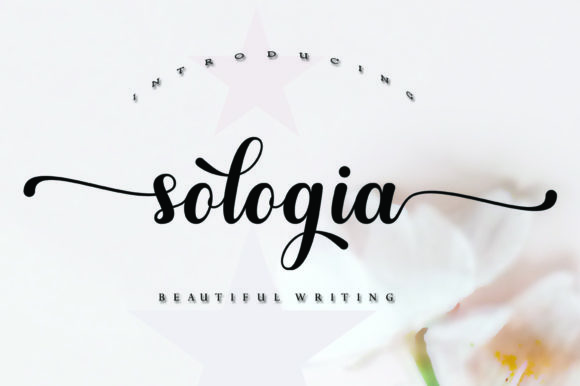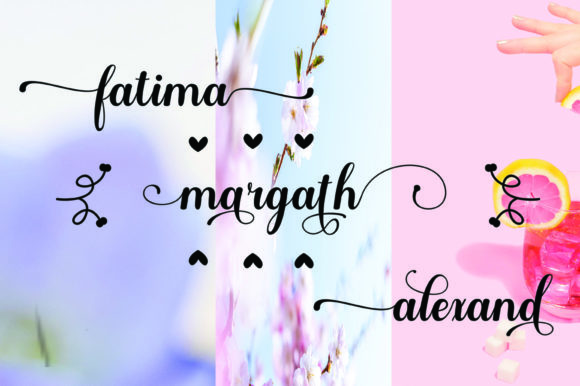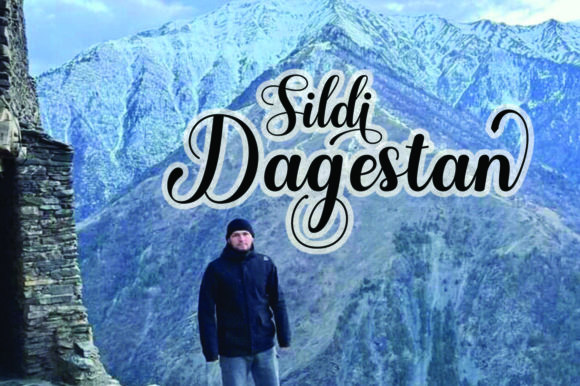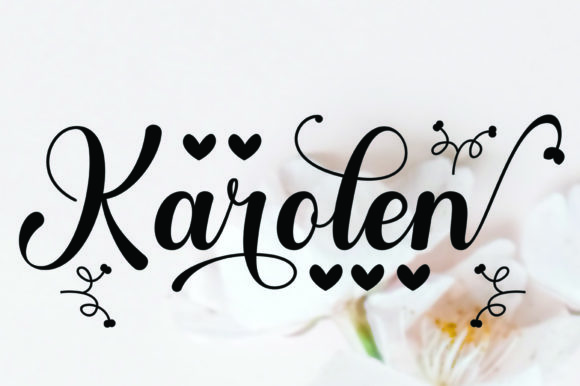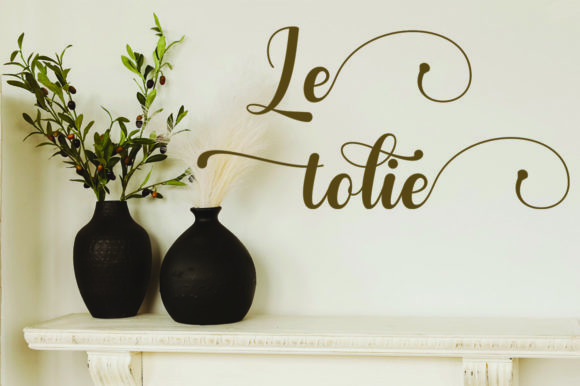
Sologia Font
About Sologia Font
Sologia is a beautiful and subtle script font that exudes a classy, elegant, and modern appearance. With its stylish and versatile design, this font is suitable for various creative endeavors. Whether used for logos, branding, invitations, stationery, social media posts, or other stylish creations, Sologia brings a touch of sophistication to your projects.
The beautiful and subtle qualities of Sologia make it an excellent choice for projects that demand a refined and modern script. Whether applied to branding materials or invitations, this font adds a touch of class and elegance to your text.
In logos and branding, Sologia’s stylish script contributes to a distinctive and memorable visual identity. The font’s subtle yet modern appearance enhances the overall sophistication of the brand, making it stand out with a touch of elegance.
For invitations and stationery, Sologia’s beautiful script creates an aesthetically pleasing and stylish look. The font’s versatility allows it to adapt seamlessly to different themes and occasions, adding a touch of modern elegance to your designs.
The inclusion of PUA encoding in Sologia ensures easy access to all glyphs and ligatures, allowing for creative exploration and customization in your designs. This feature enhances the font’s utility, making it a valuable tool for creating unique and personalized typographic compositions.
Whether applied to digital or print materials, Sologia stands out with its beautiful and subtle design. The font’s ability to convey sophistication and modernity adds a level of visual appeal to your projects, making them more refined and captivating.
In summary, Sologia is more than just a font; it’s a beautiful and subtle script font that enhances the beauty of your projects. Whether used in branding, invitations, stationery, or other stylish creations, Sologia brings a classy and modern aesthetic that elevates your typographic compositions with grace and sophistication.